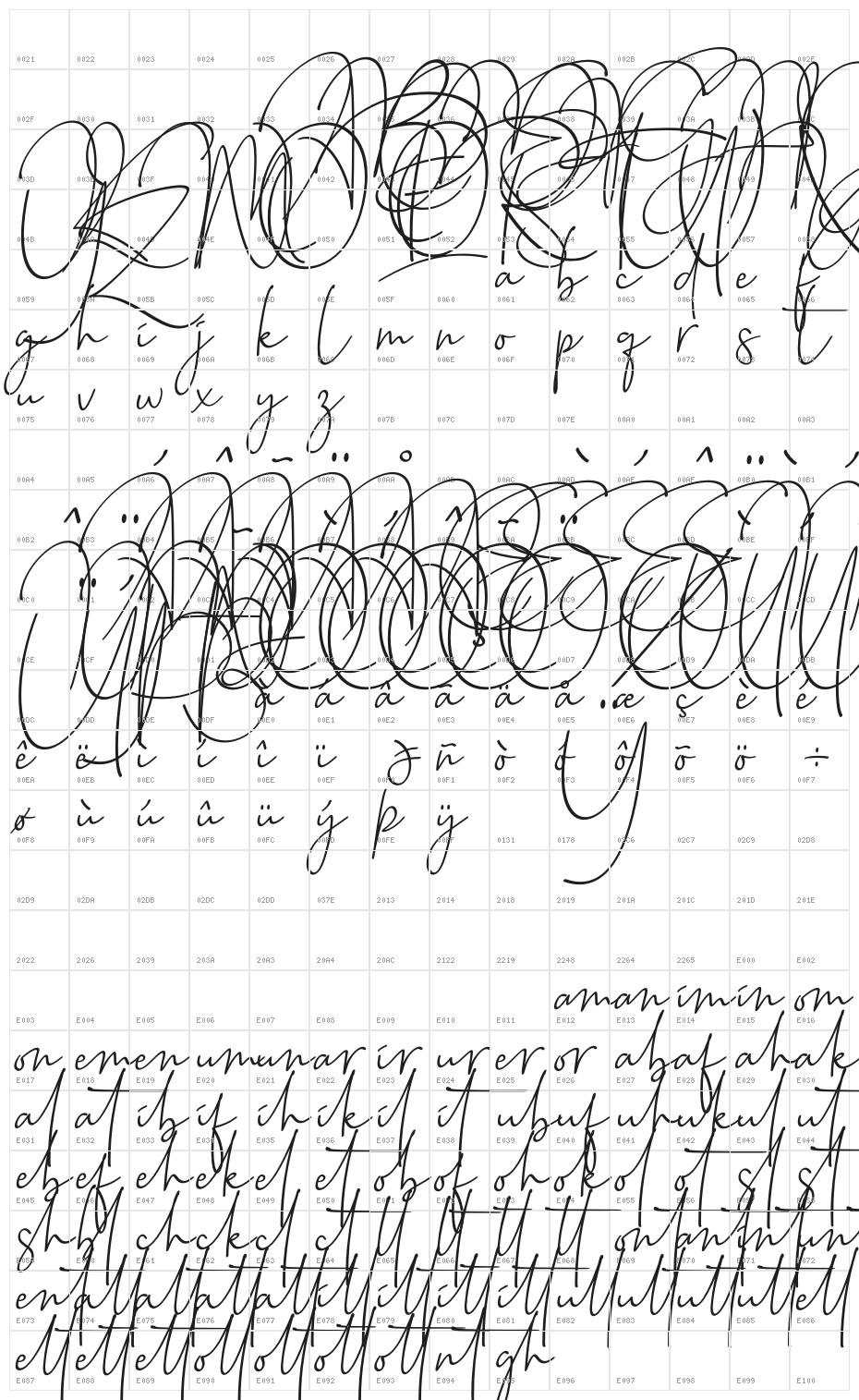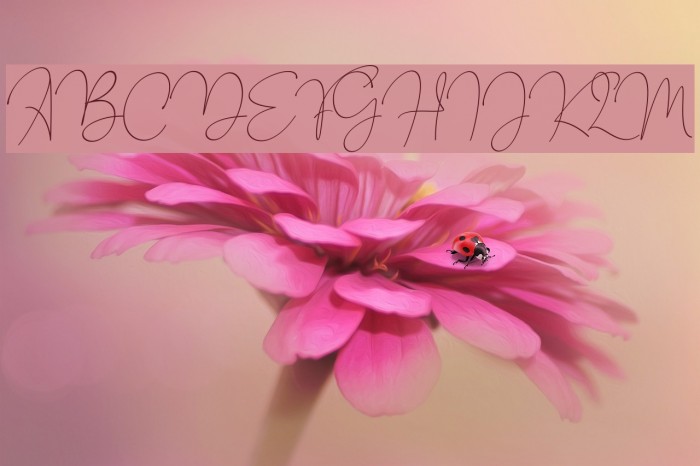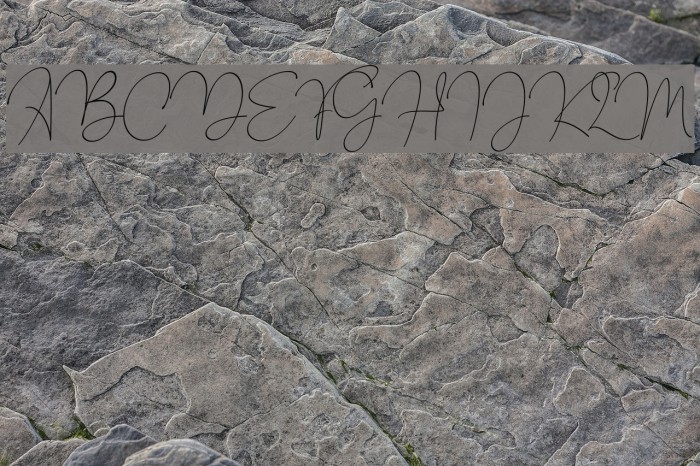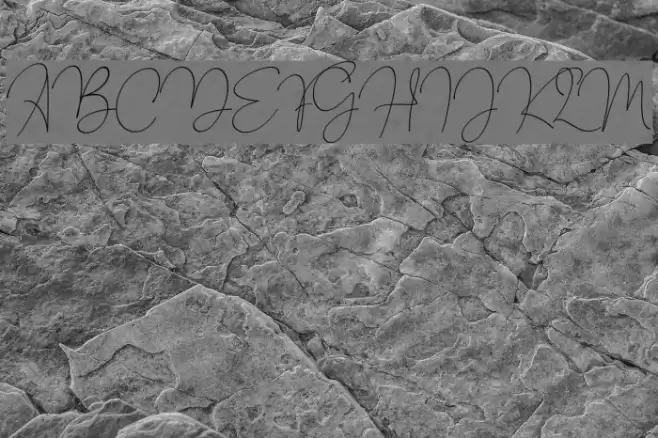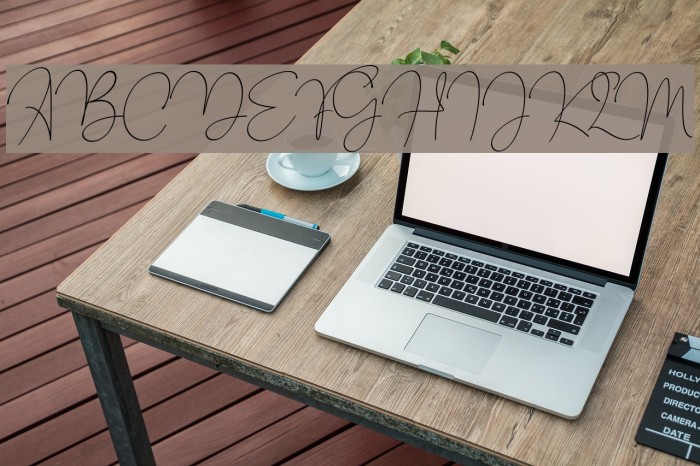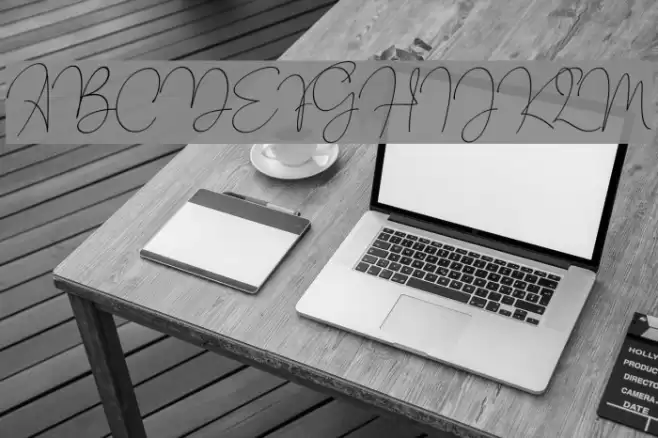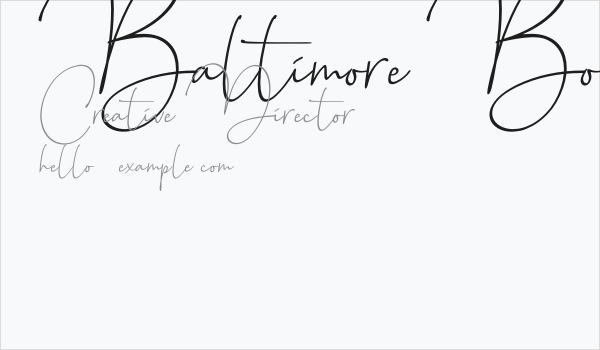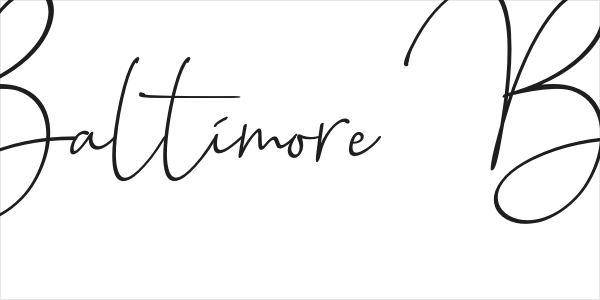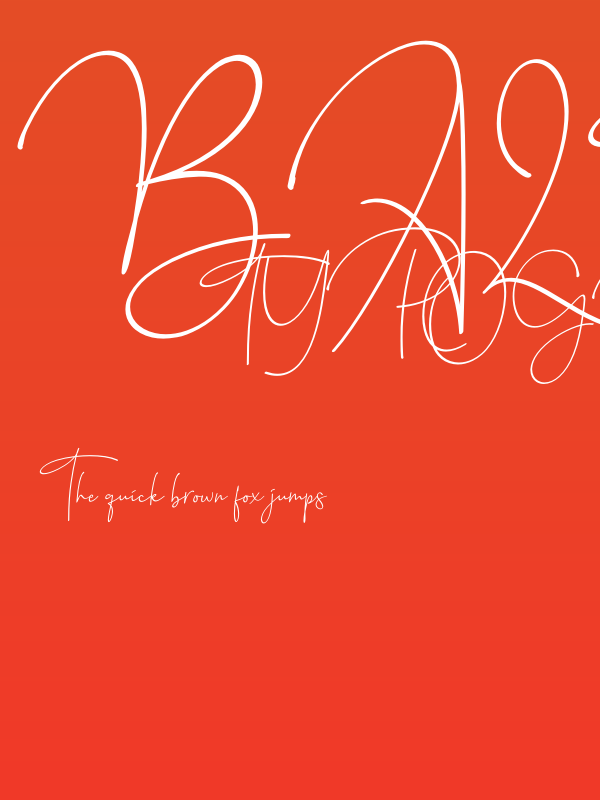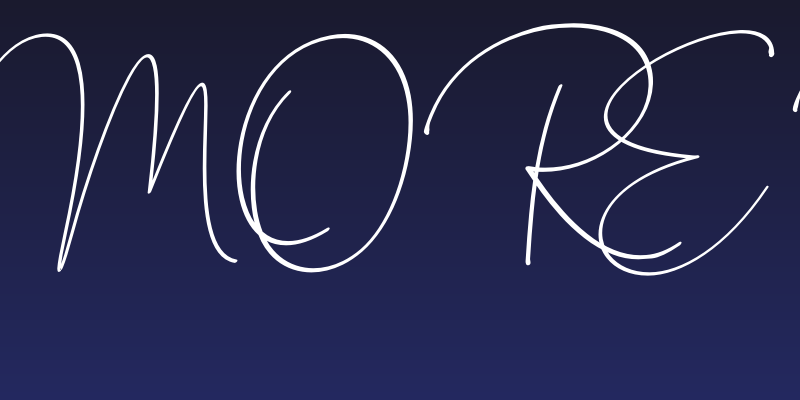
Baltimore Bold Font
Baltimore Bold Description
This font exhibits a dynamic and fluid script style, characterized by its elegant and flowing letterforms. The uppercase letters are tall and slender, with graceful loops and curves that give a sense of movement and sophistication. The lowercase letters maintain a consistent style, with elongated ascenders and descenders that enhance the font's overall elegance. The strokes are smooth and continuous, creating a seamless and harmonious appearance. This font is ideal for projects that require a touch of elegance and personality, such as wedding invitations, branding, and high-end product packaging.
| Proposed Projects | Ideal for wedding invitations, branding, high-end product packaging, and elegant stationery. |